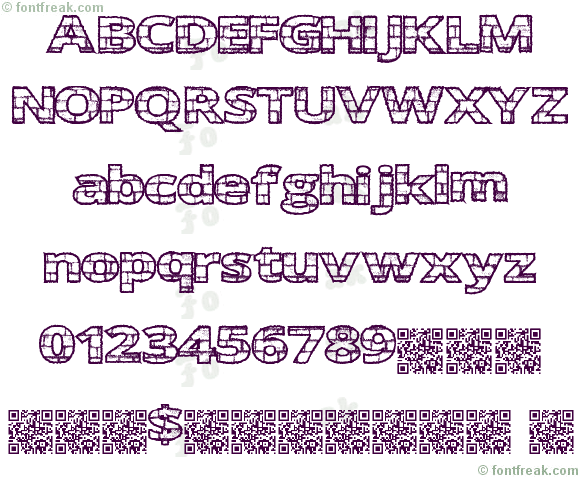
EasyBricks
About EasyBricks
EasyBricks, designed by XEROGRAPHER FONTS in 2013, is a unique display font that captures attention with its playful and creative style. This decorative typeface features a distinct blocky appearance that mimics the look of bricks, making it perfect for projects that require a bold visual statement. The font showcases a medium stroke weight with minimal contrast, ensuring legibility while still offering a fun, quirky vibe. The spacing between letters is well-balanced, allowing for easy reading, while its decorative elements add a touch of whimsy to any design.
Ideal for a variety of applications, the EasyBricks font shines in contexts such as children’s book covers, playful branding for toy stores, or vibrant posters for community events. Its unique aesthetic makes it an excellent choice for restaurant menus that want to convey a casual and inviting atmosphere or for art projects where creativity and originality are paramount. Additionally, graphic designers and content creators will find it useful for crafting engaging social media graphics that stand out in crowded feeds.
What sets EasyBricks apart is its ability to blend functionality with a distinctive style. Unlike many other display fonts, it maintains a level of readability that allows it to be effective in various applications without sacrificing character. For those seeking a font that infuses personality and charm into their designs, the EasyBricks font free download is a valuable resource that can elevate any creative endeavor.